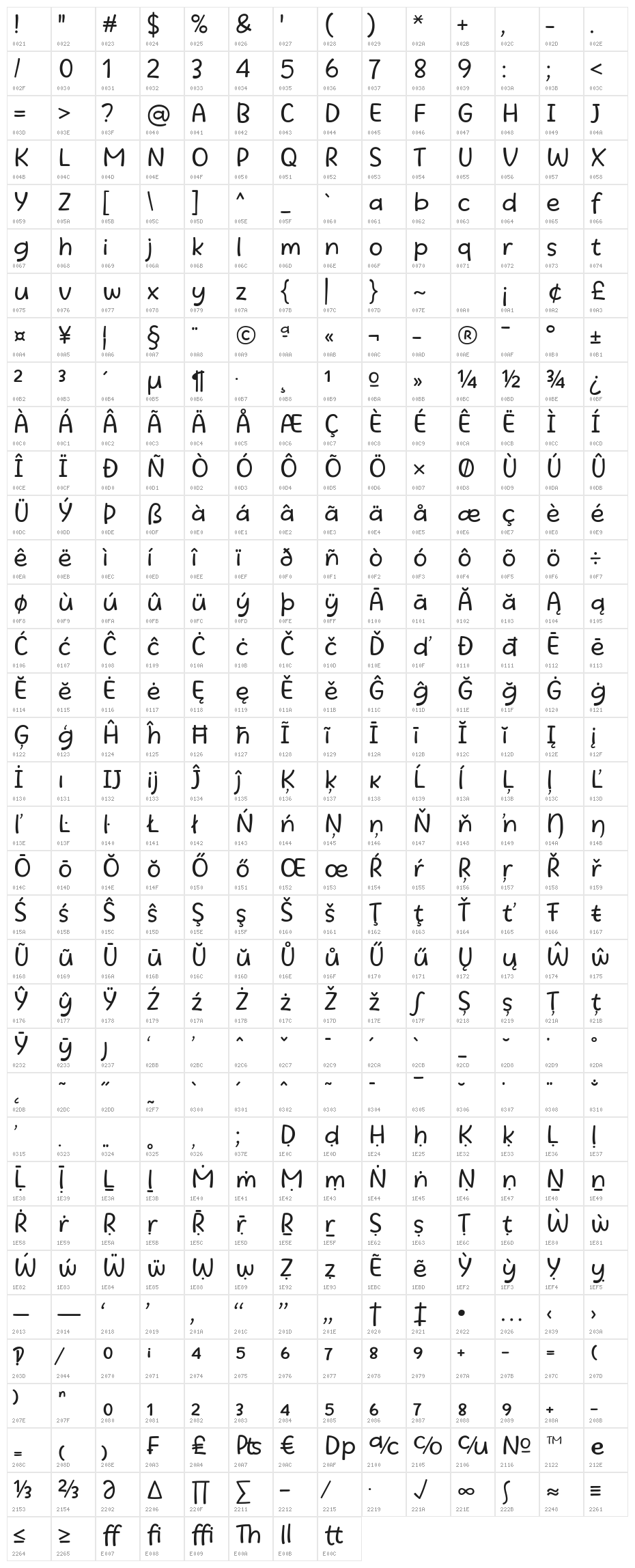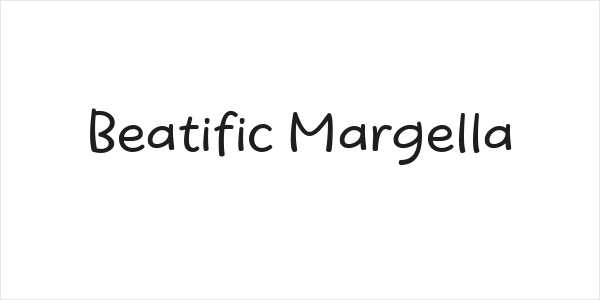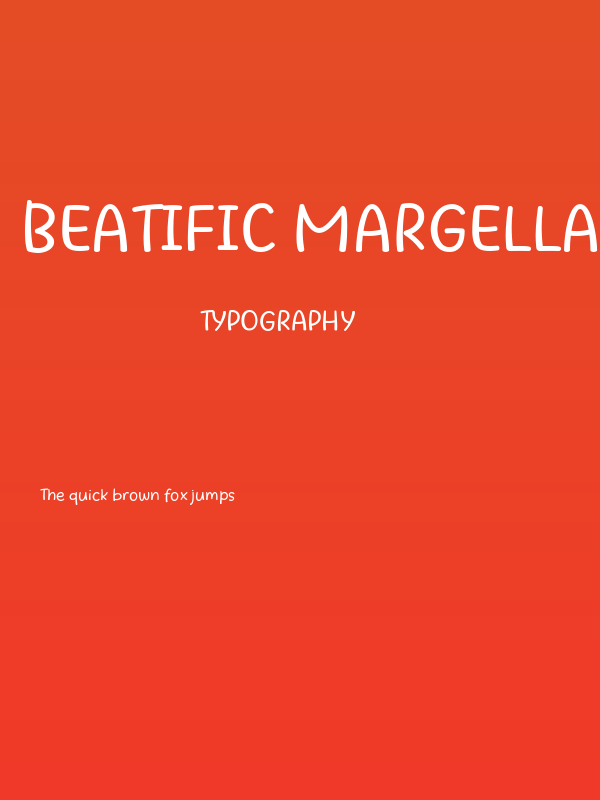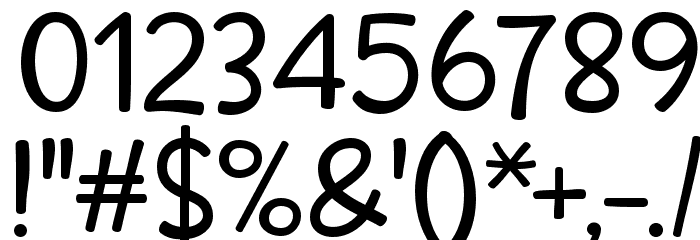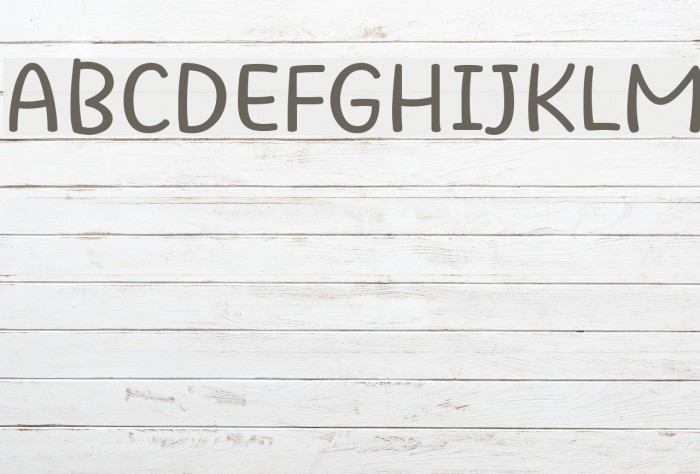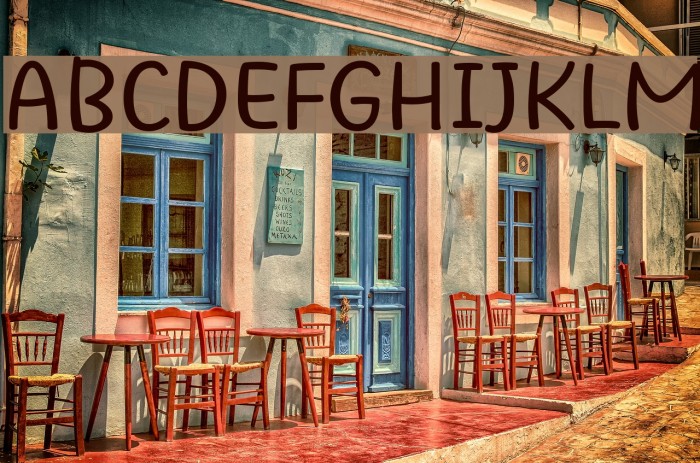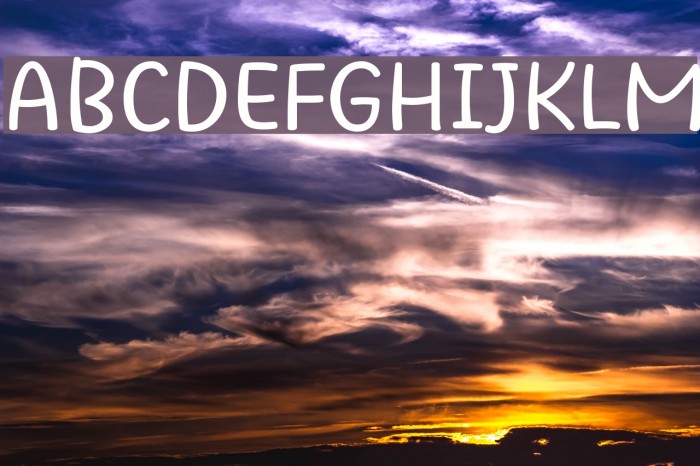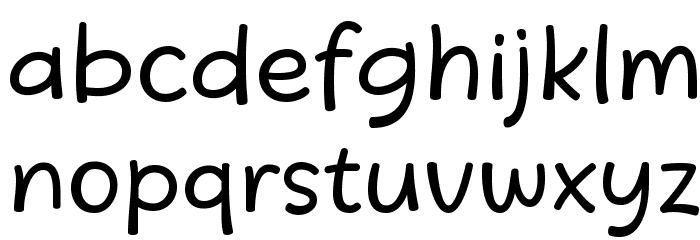
Beatific Margella Font
This font features a playful and friendly design, characterized by rounded edges and a casual, handwritten style. The letters are evenly spaced with a consistent stroke width, giving it a clean and approachable appearance. The uppercase and lowercase letters maintain a harmonious balance, while the numerals and special characters complement the overall aesthetic. Its simplicity and charm make it versatile for various design projects.
| Proposed Projects | Ideal for children's books, greeting cards, playful branding, and casual invitations. |